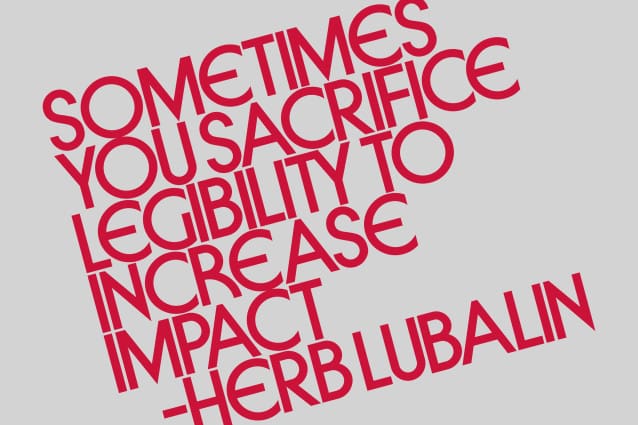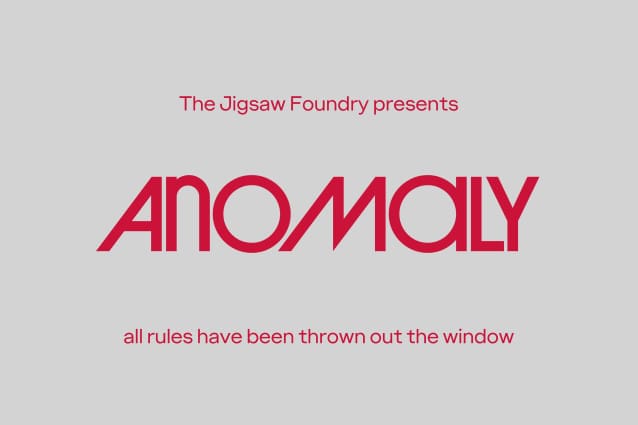
Anomaly Font
Anomaly Font, is my attempt to rejuvenate the true spirit of the late Herb Lubalin. Don’t get me wrong, I’m glad his fonts have been digitally archived, but all of them with the exception of Avant Garde Gothic have no alternates or ligatures! And they’re all spaced for body text, making them essentially useless, unless you want to go through the effort of spacing everything yourself. Anomaly solves this problem by being tight as a belt right out of the box. Complete with a couple of stylistic alternates and extra ligatures, if you want to set a heading like it’s 1974, Anomaly is your guy.